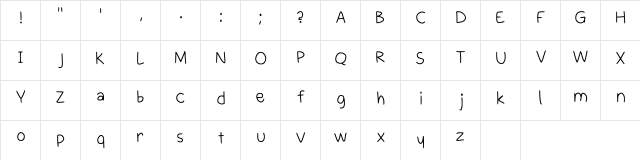
Pooper Scooper Regular
Design Context for Pooper Scooper Typeface
Pooper Scooper takes a measured approach to typography — its balanced proportions and neutral character make it a reliable workhorse for both digital and print work.
Pro Tip: Use Pooper Scooper in both headline and body roles to test its range before committing to a single application.